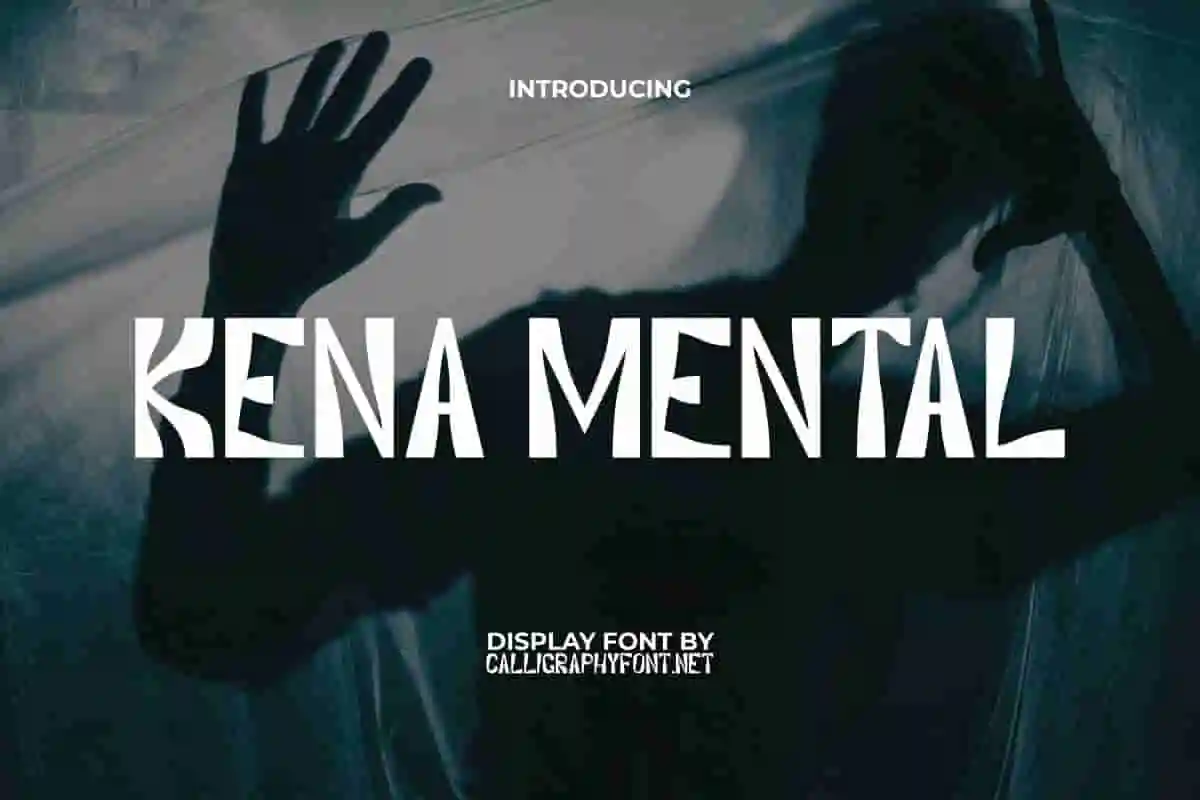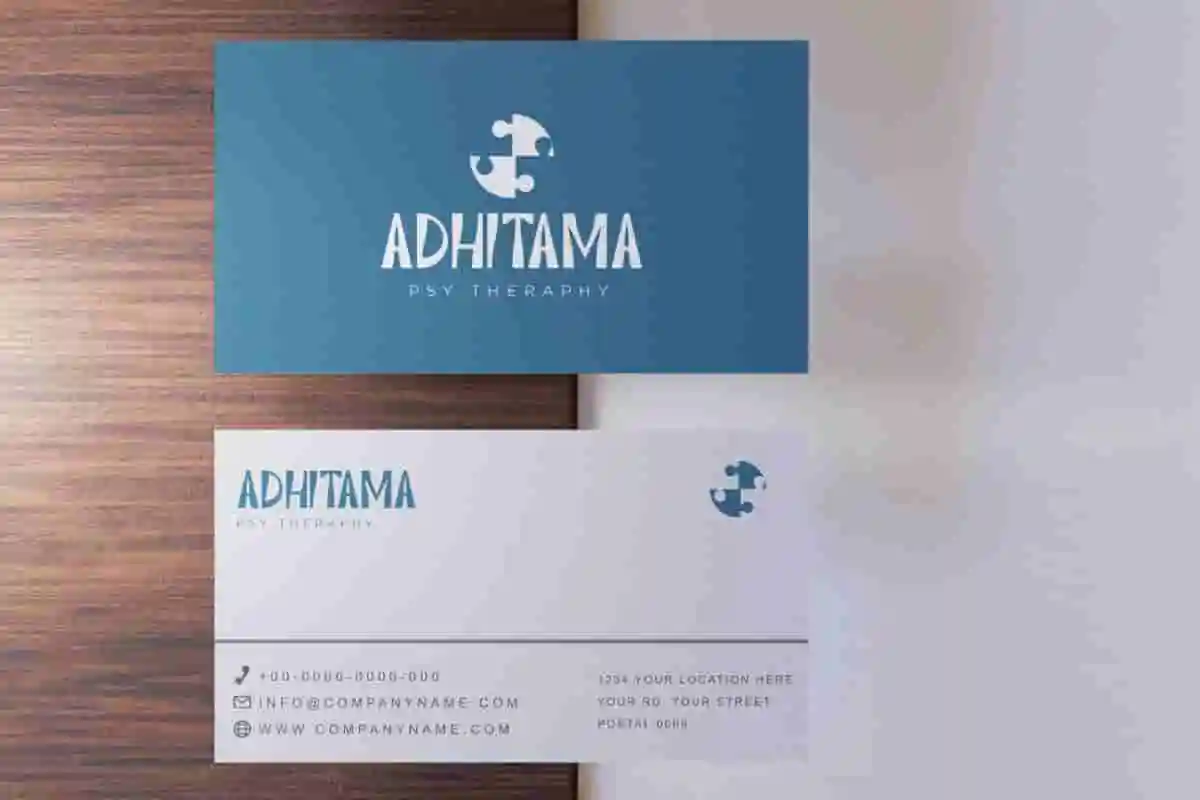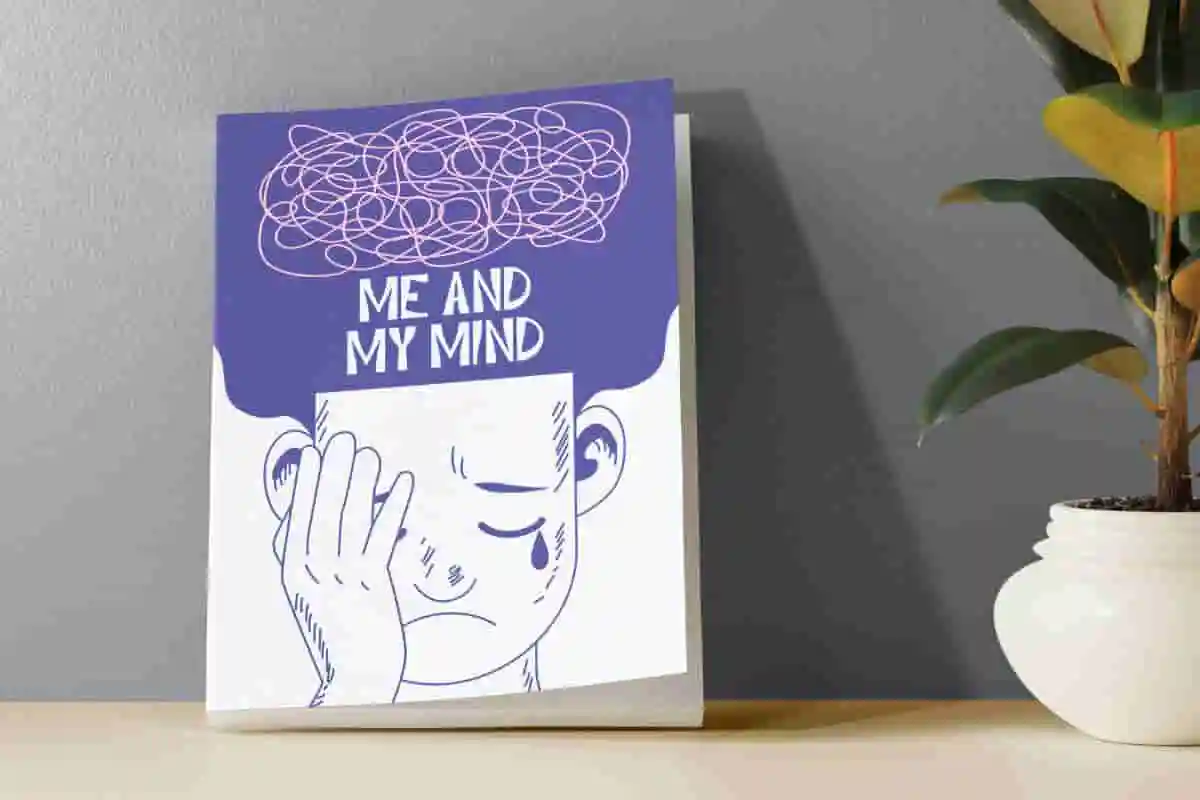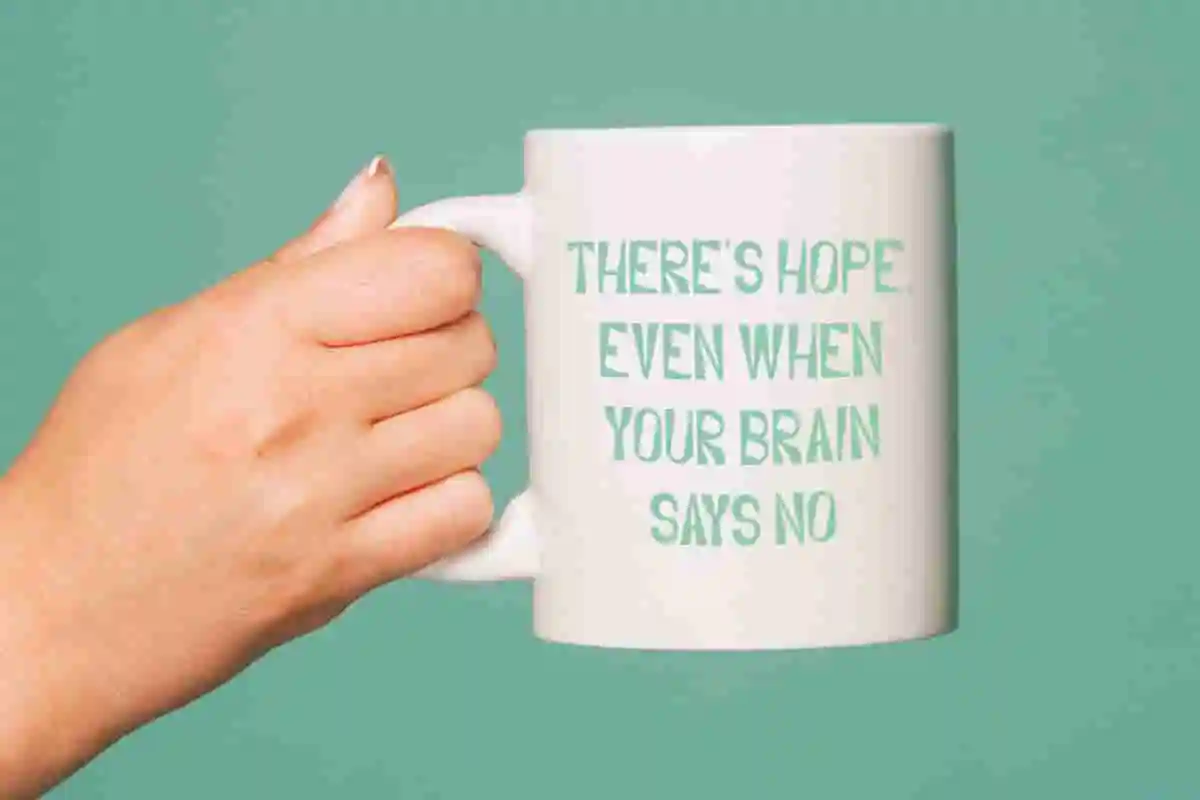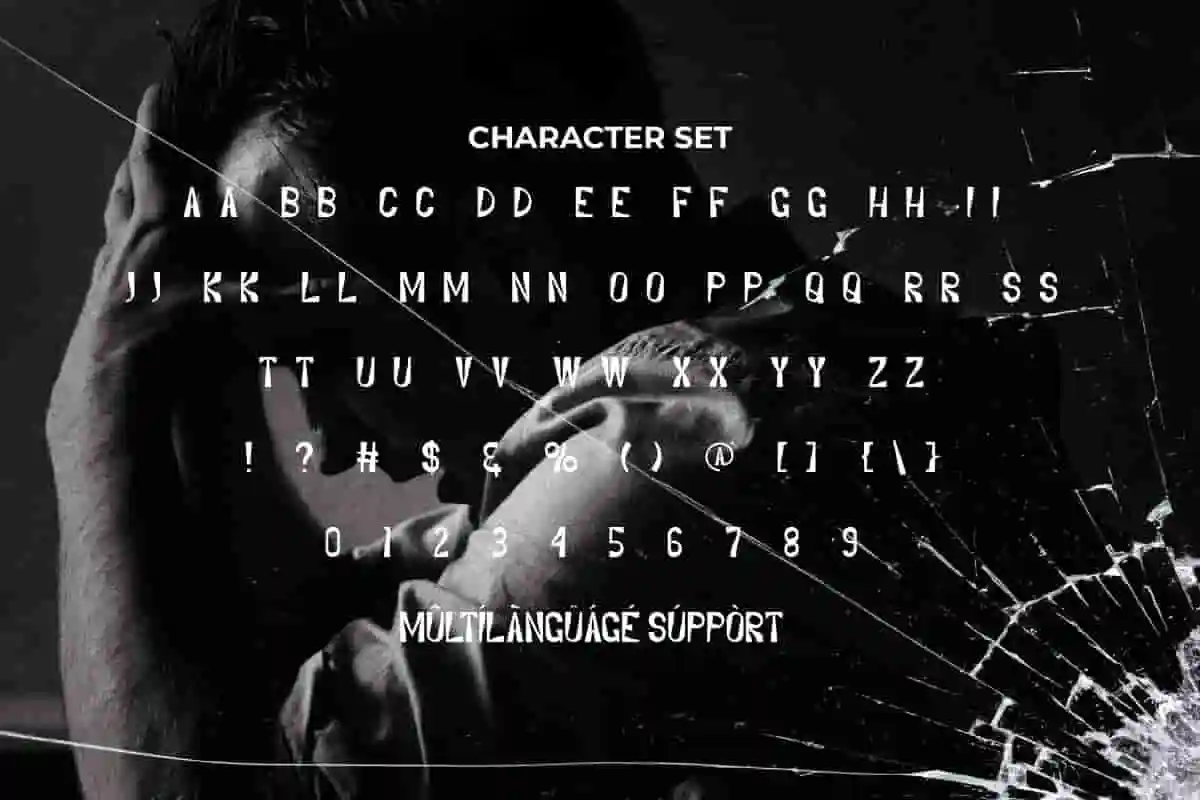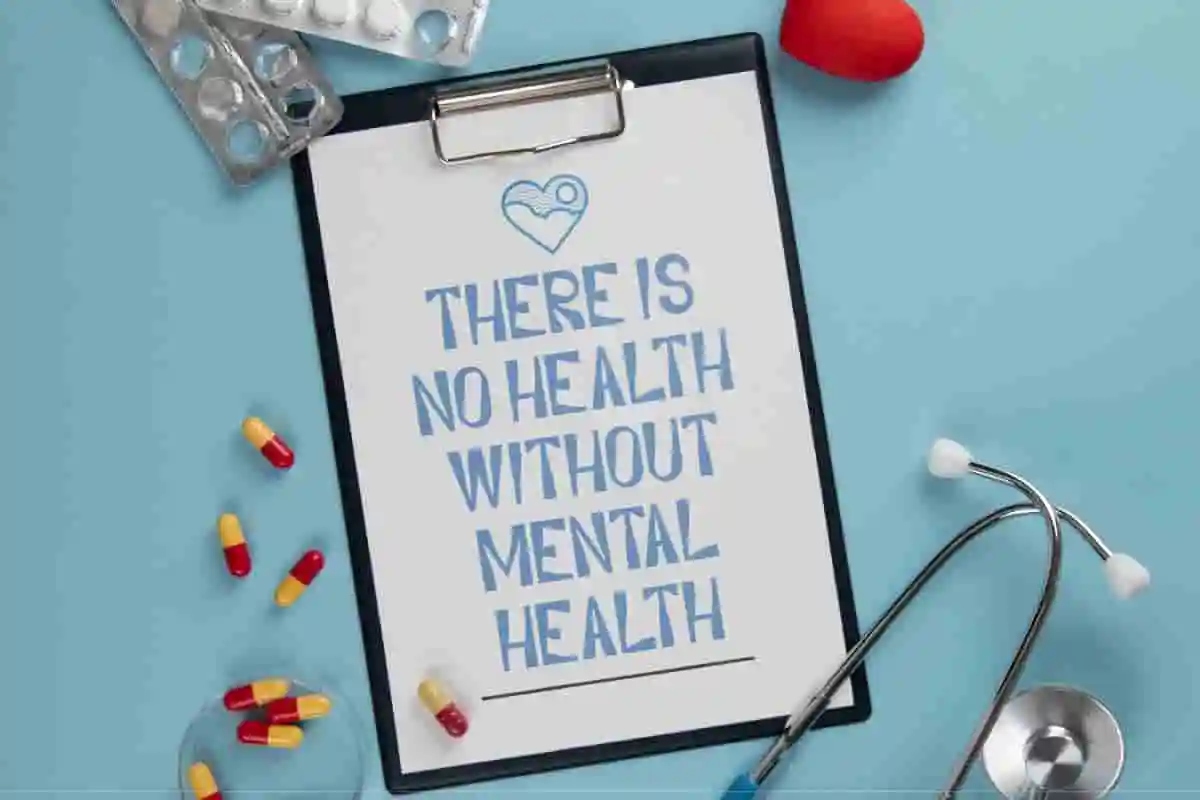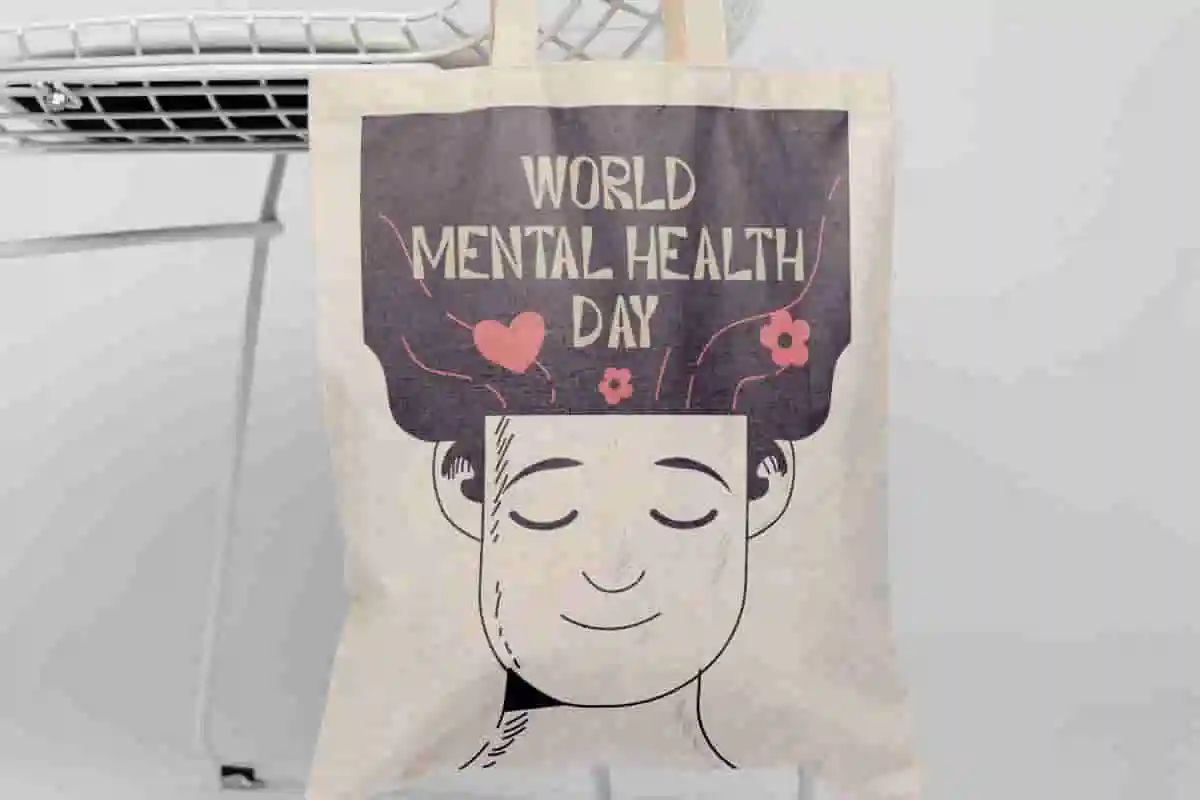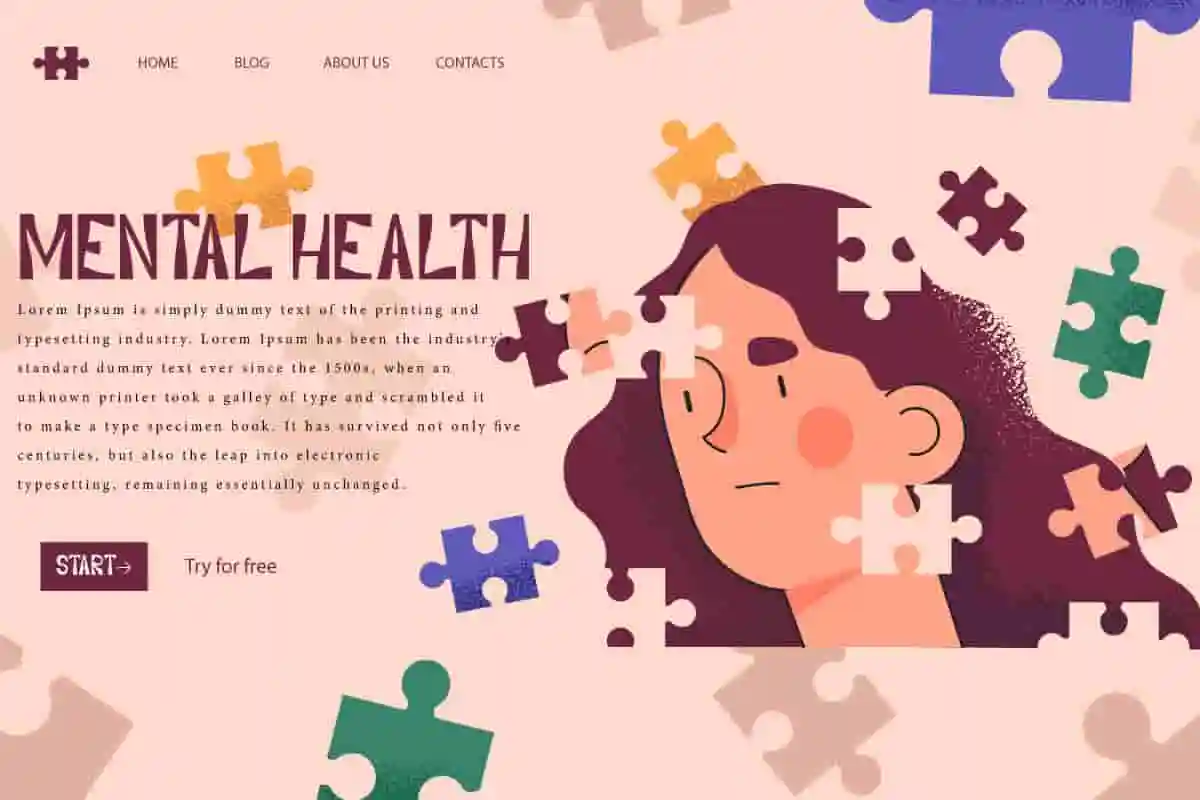
Kena Mental Display Font
Kena Mental Font is a modern display font with an attractive typeface that will blow your mind. It will be multipurpose for billboard, merchandise, poster, psychologist, social campaign, website, etc.
Kena Mental Font is a unique irregular block display font inspired from mental health problems. This type of font has a slightly tall shape, a little thick and wavy in certain parts making it look like the broken parts are then connected. This reminds us of the importance of mental health which must be maintained because it will be difficult to repair if it is damaged. It has been set up so that it is suitable for any industry, such as advertising material, author, homeware, movie, organization and campaign events, psychiatrist specialist, writer, and things related.
Looking for a typeface that instantly grabs attention and makes your designs stand out? Kena Mental Display Font is here to deliver the impact your creative projects deserve. Designed with bold strokes, edgy curves, and modern character shapes, this display font is perfect for anyone who wants to communicate confidence, energy, and personality through typography.
Whether you are a graphic designer, brand owner, or content creator, Kena Mental Display Font brings versatility to your toolkit. Its strong, eye-catching design makes it ideal for logos, posters, headlines, product packaging, apparel design, music covers, and social media graphics. With every letter crafted to stand out, this font ensures your message is never ignored.
The beauty of Kena Mental lies in its balance between creativity and readability. While it has a daring and expressive style, it remains clear and professional—perfect for modern branding. This font isn’t just type; it’s a powerful statement that helps your designs express bold emotions and unique identity.
If you want to elevate your designs and leave a lasting impression, Kena Mental Display Font is the perfect choice. Don’t settle for ordinary fonts when you can create extraordinary visuals.
Kena Mental Display Font is a work of art in the field of writing (typeface) to represent support for mental health recovery which would be the right choice as primary text and/or secondary text (paired with other font types). It will be versatile in any project, such as apps, billboard, book cover, brand logo, brochure, business card, header, mockup, packaging design, poster, screen print, signage, stationery, sticker, watermark, website, etc.